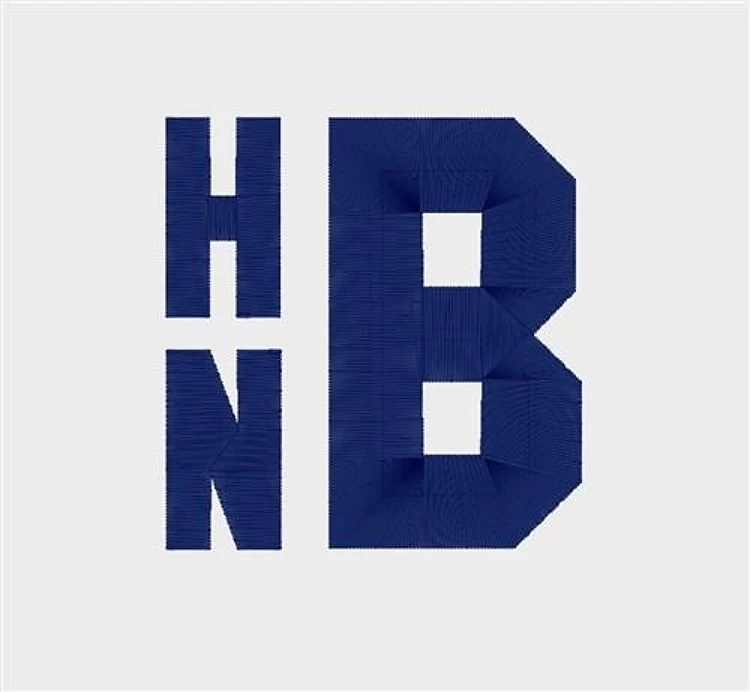
Artsy Knots is happy to present Boys stacked college monogram Embroidery Font - Bold Collegiate Applique Lettering - Home Format - PES, DST & 6 formats machine embroidery font which has Bold varsity monogram applique embroidery font perfect for sports team items like jackets and gear. Stacked letters 'HBN' provide a strong presence. Available in PES, DST & 6 other machine formats. included. If you would like to view more embroidery fonts and alphabets please search our embroidery fonts page.